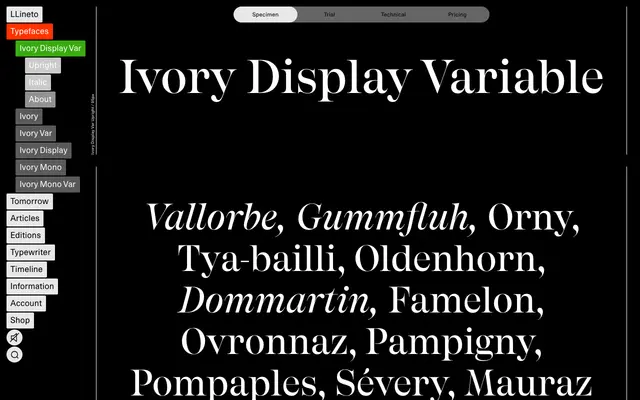
LL Ivory Display Var
A variable display serif by Aurèle Sack, drawing on 19th-century American wood type and refined through strict geometric construction for editorial and titling use.
Originally commissioned by Vogue Hommes Paris as a titling face to accompany LL Brown, the display version retains the very extended proportions of its American wood type sources while reducing contrast and sharpening the serifs into something more precise. Construction follows Sack's characteristic grid method, giving even the expressive display cuts a surgically clean geometry. The broader LL Ivory family extends to text and monospaced variants, tested across art catalogues, books and magazine work before wide release.
A high-contrast display serif with extended proportions derived from 19th-century American wood type and poster fonts, refined through geometric construction into a distinct contemporary formulation.